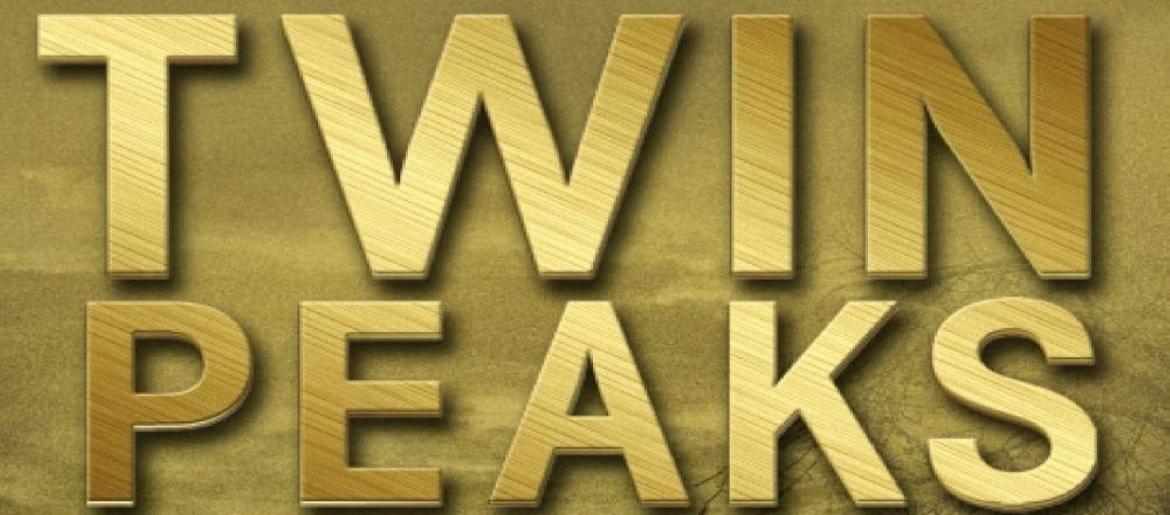
Twin Peaks Font
The Twin Peaks Font is instantly recognizable, perfectly reflecting the mysterious, surreal, and rustic atmosphere of David Lynch and Mark Frost’s cult classic TV series. Its bold serif lettering conveys both simplicity and intrigue, giving the title sequence a timeless, haunting quality. Fonts similar to this style can be used for retro-inspired graphics, fan projects, or designs that aim to capture a suspenseful, enigmatic vibe. Free alternatives are available that replicate the same classic, eerie aesthetic.
About Twin Peaks
Debuting in 1990, *Twin Peaks* is a mystery drama series created by David Lynch and Mark Frost. The story begins with the murder of Laura Palmer in a small town, unveiling a web of secrets, strange characters, and surreal events. Praised for its groundbreaking narrative, eerie atmosphere, and cultural impact, *Twin Peaks* remains a defining work in television history, continuing to captivate audiences and inspire fans decades after its premiere.